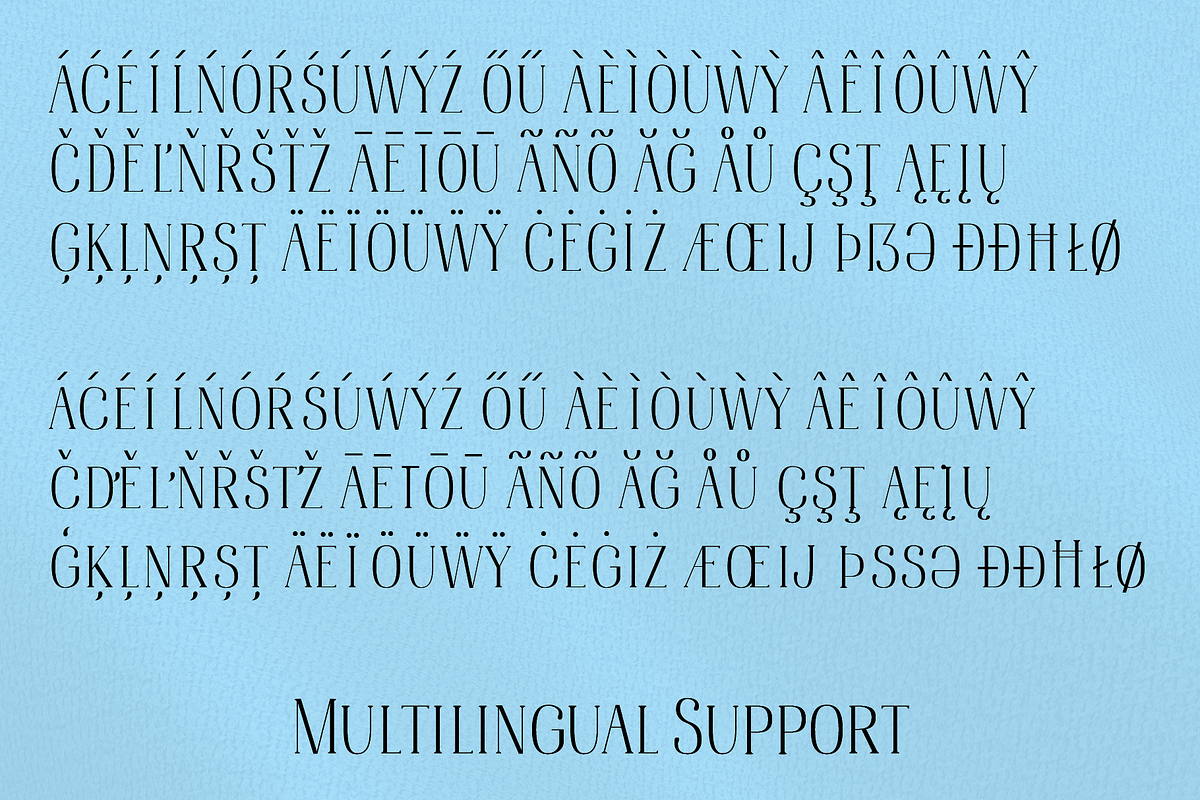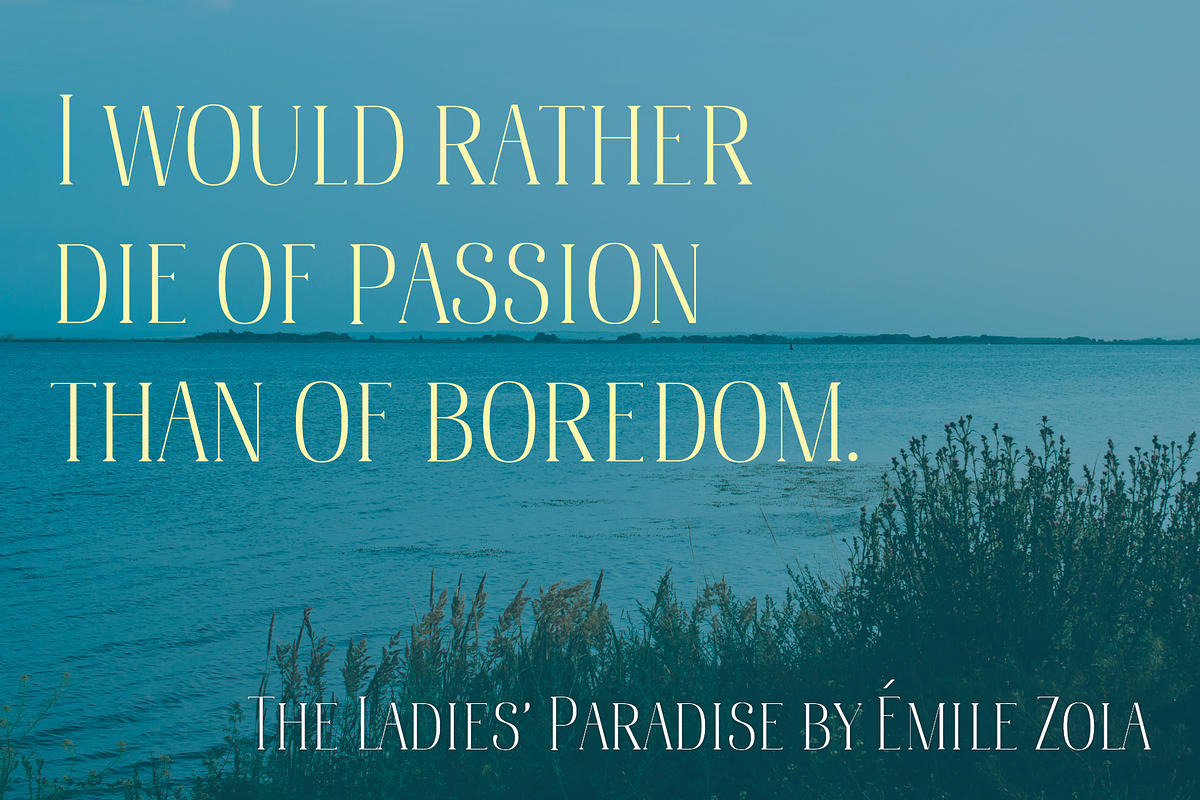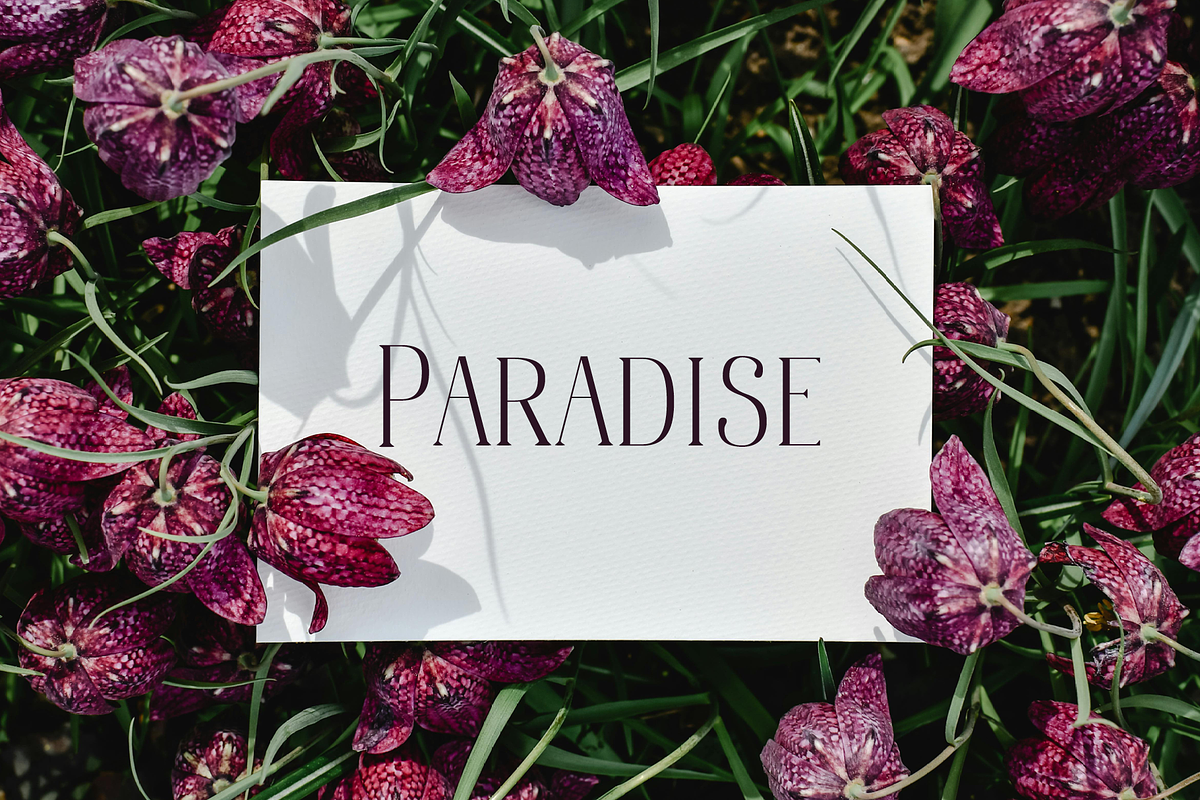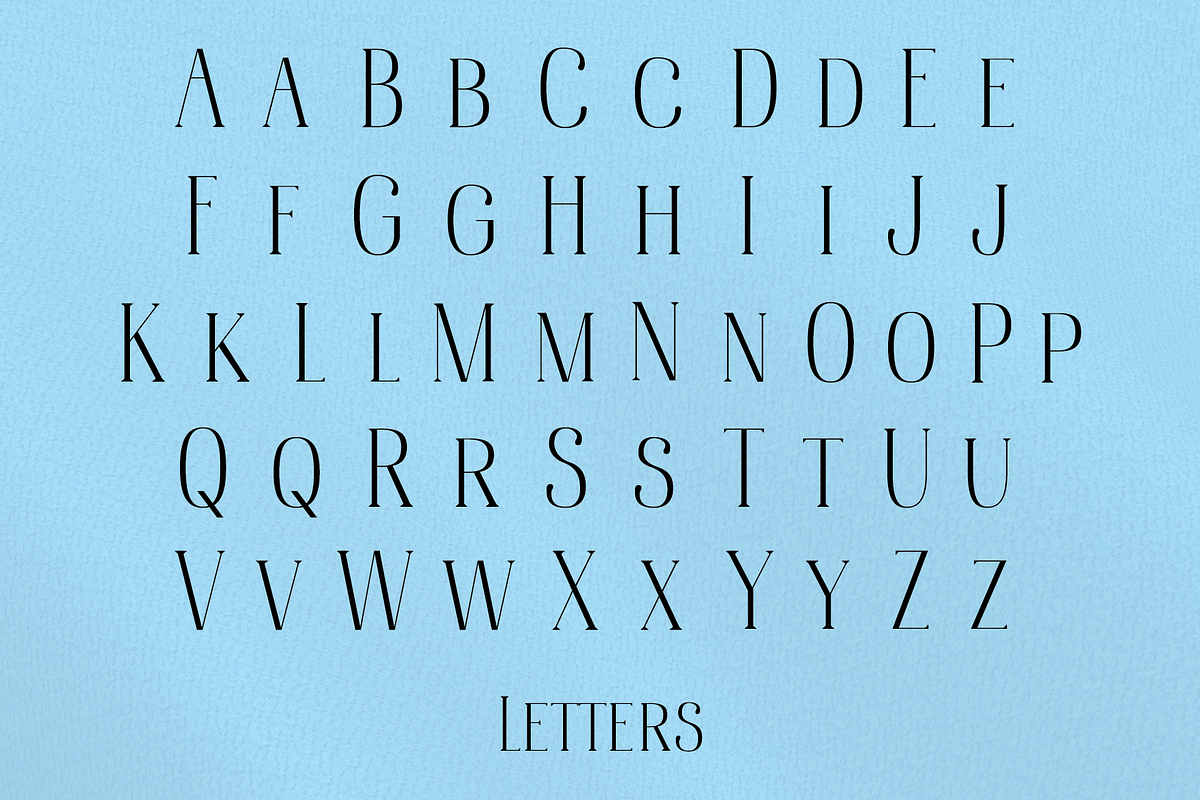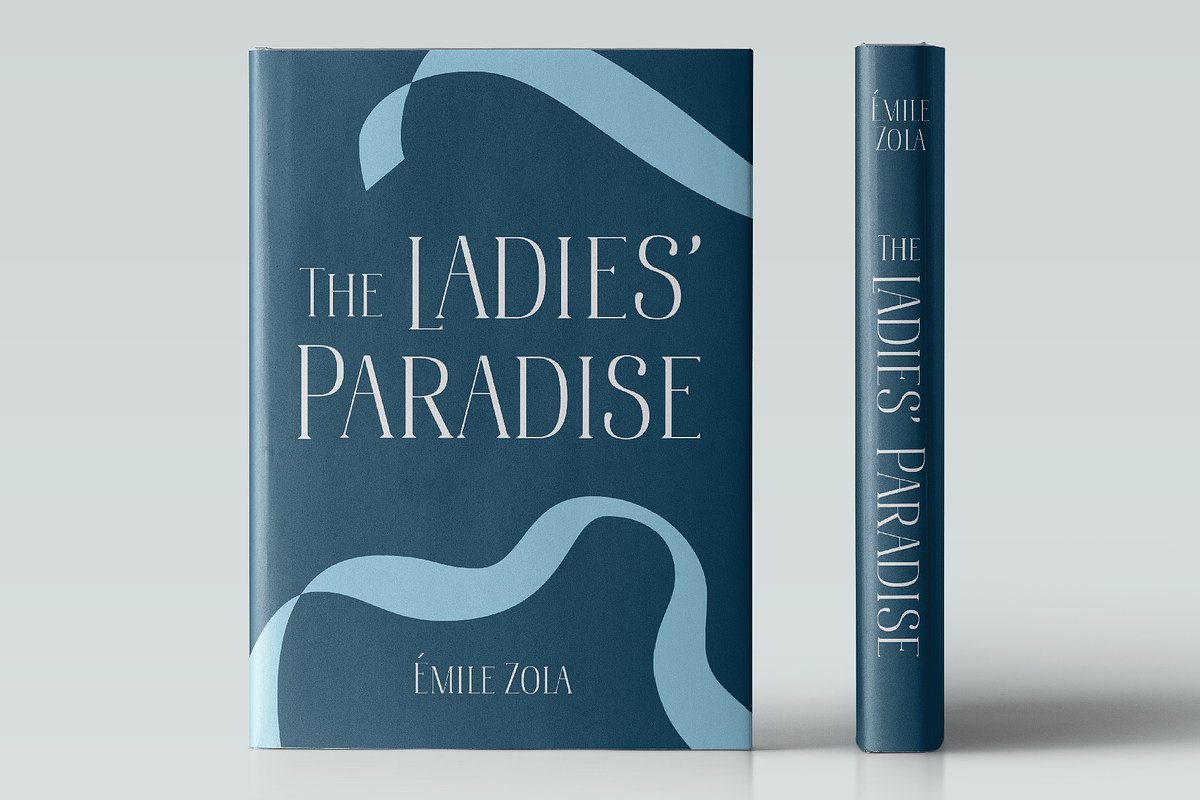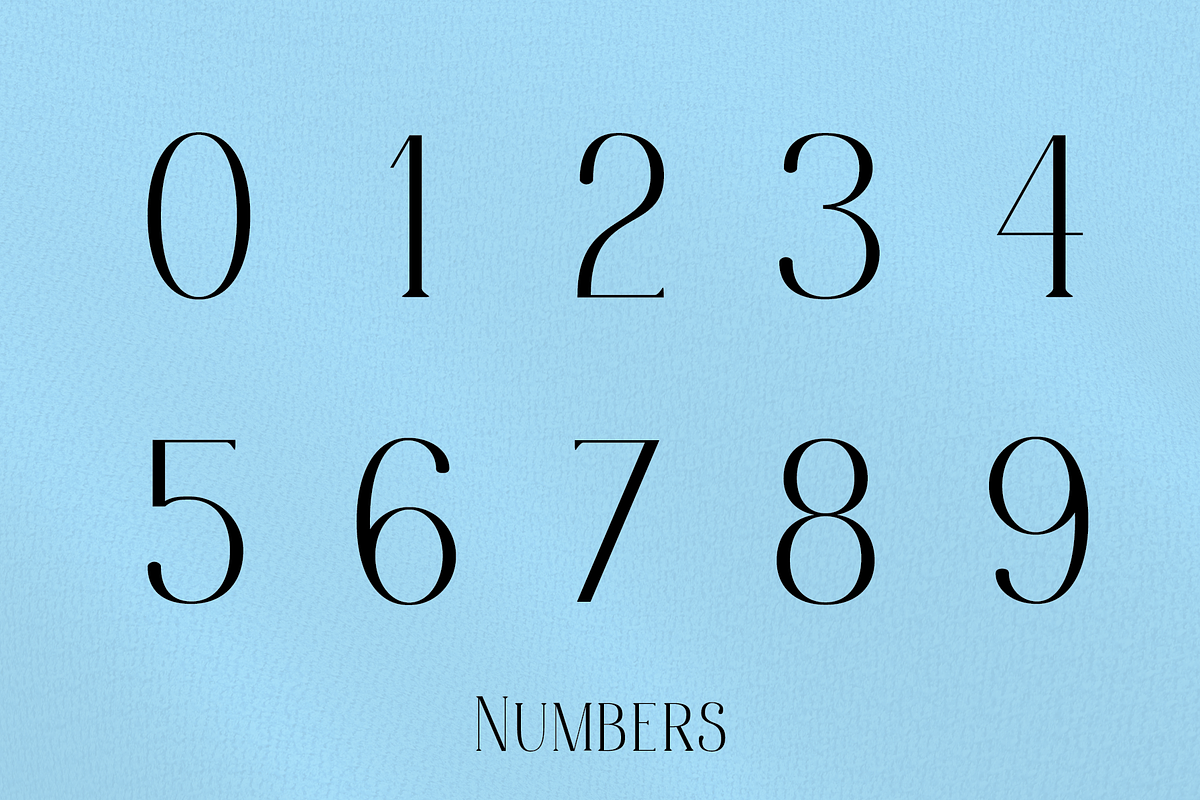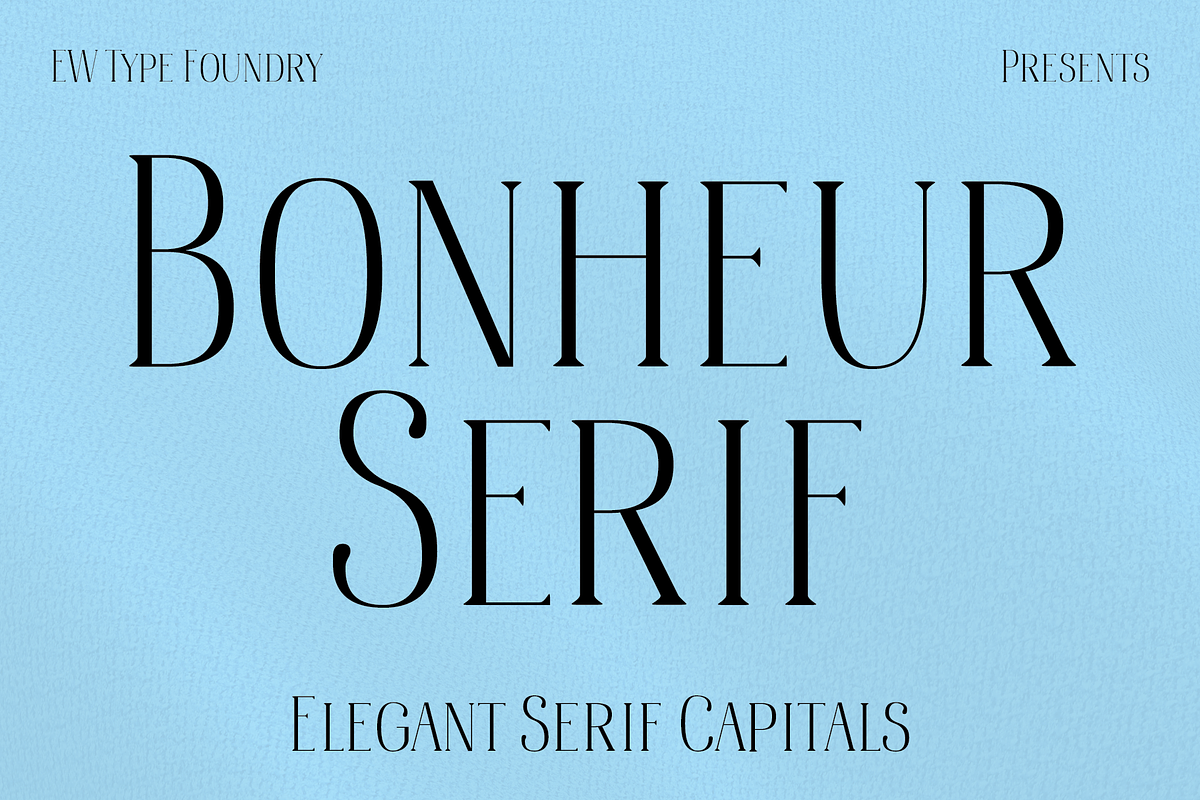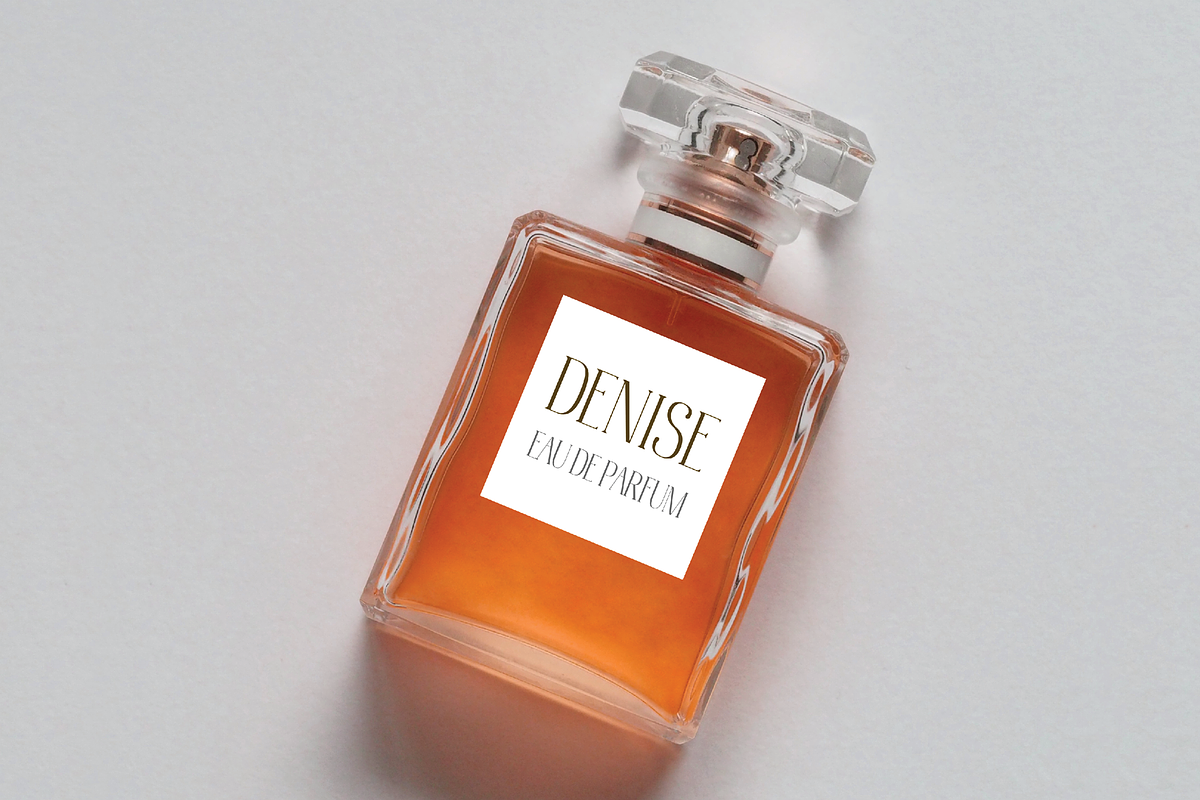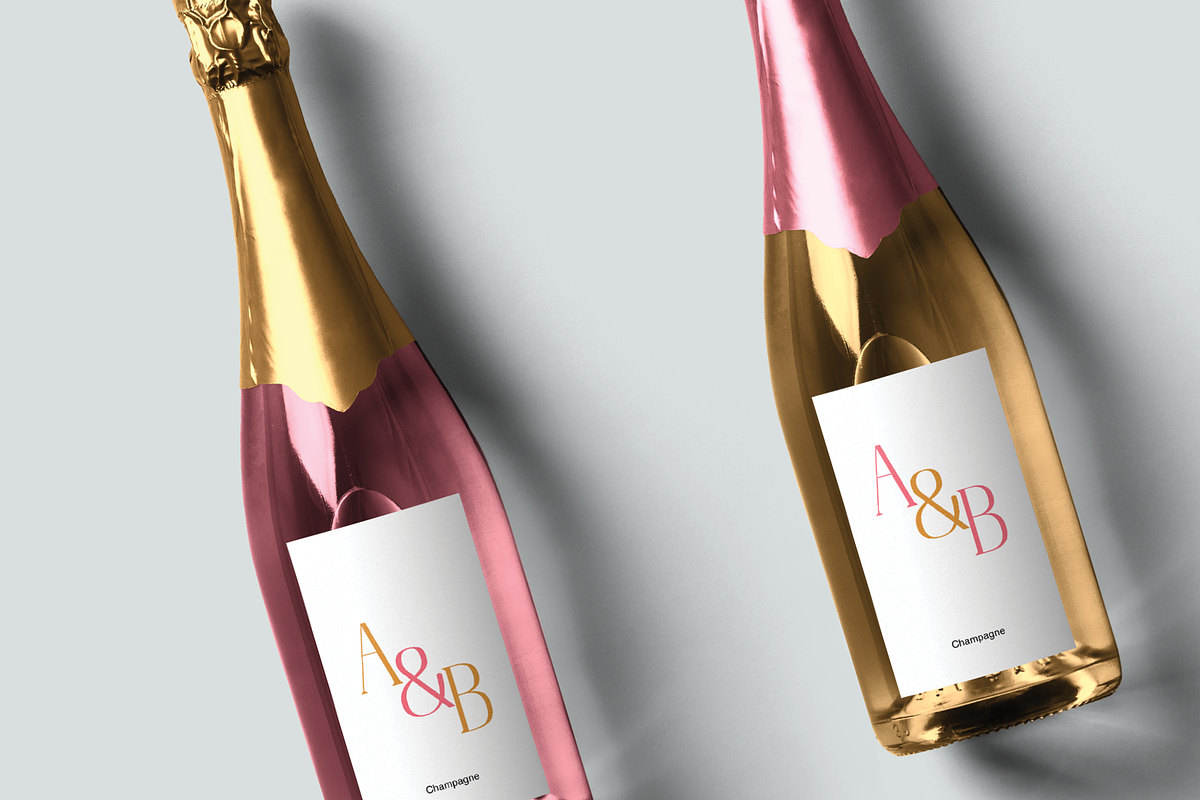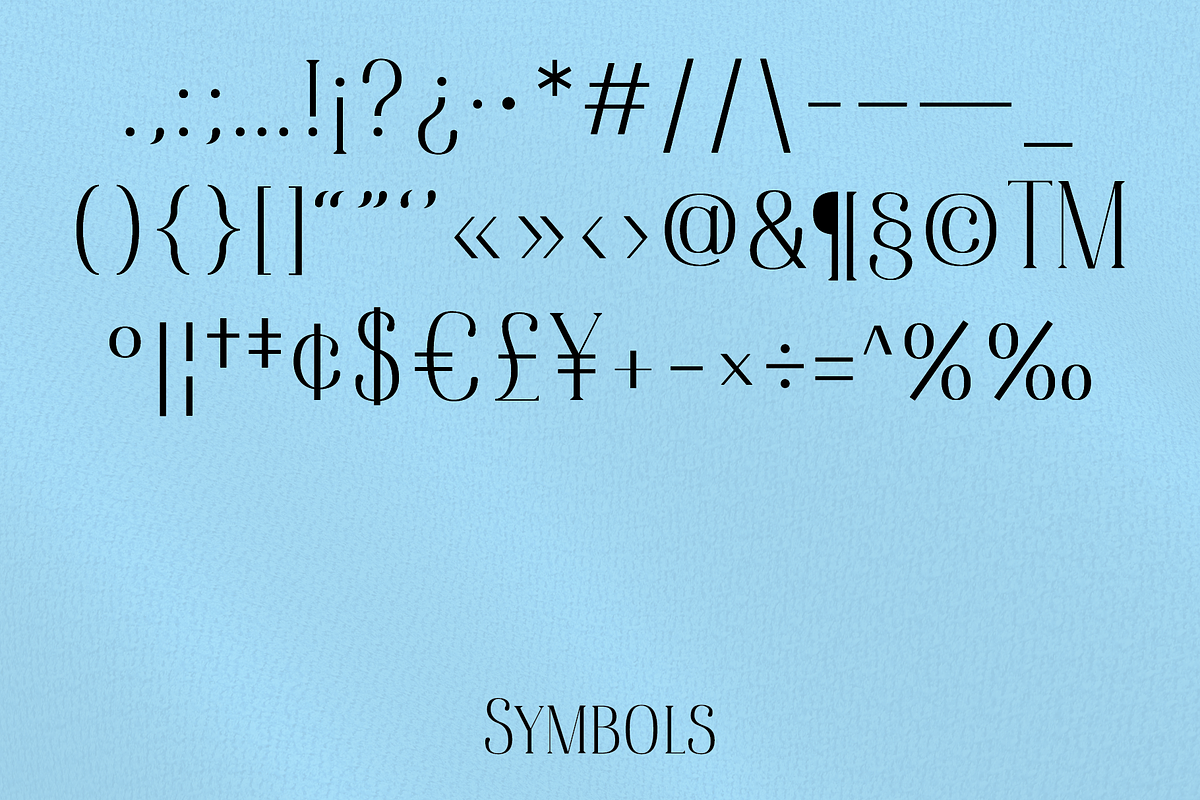
Bonheur Serif
Bonheur Serif is an elegant all-caps serif font inspired by the classic novel The Ladies’ Paradise by Émile Zola. Drawing on high fashion for inspiration, this elegant serif is perfect for a variety of applications, including book covers, wine bottle labels, and perfume package designs.
The font file includes symbols and multilingual support for some European and South American languages. Check the preview images for the inclusion of specific diacritics.